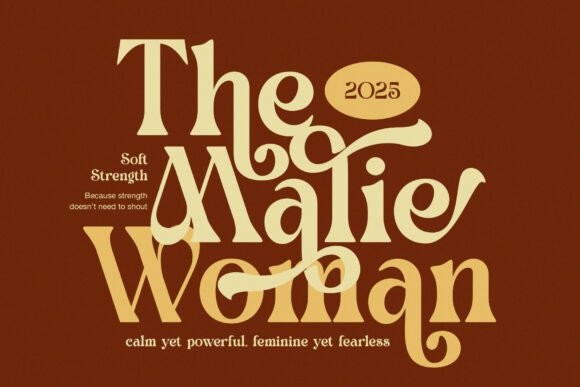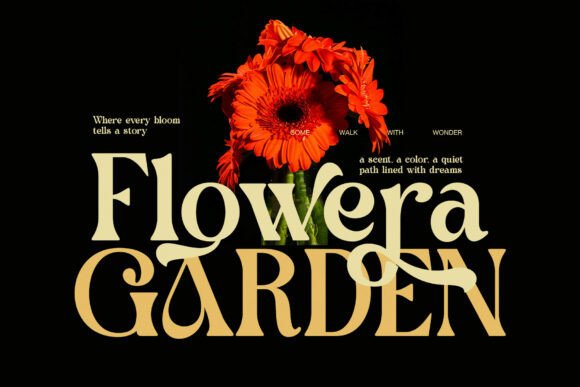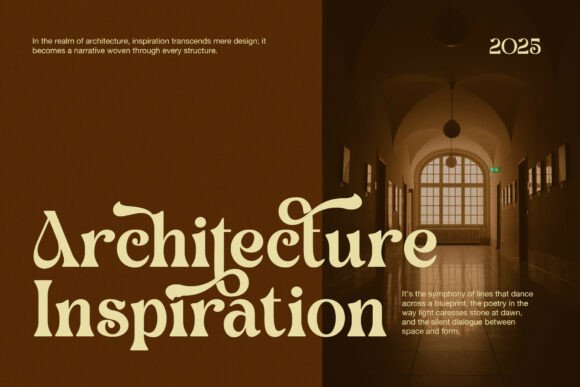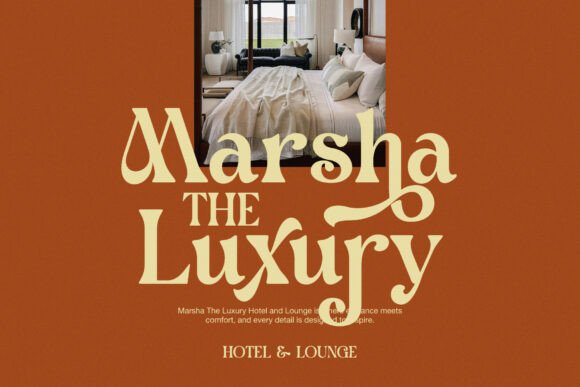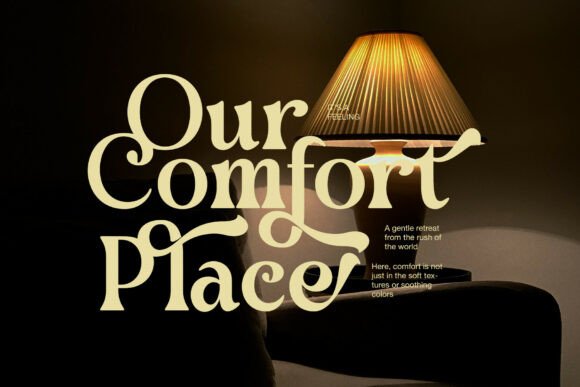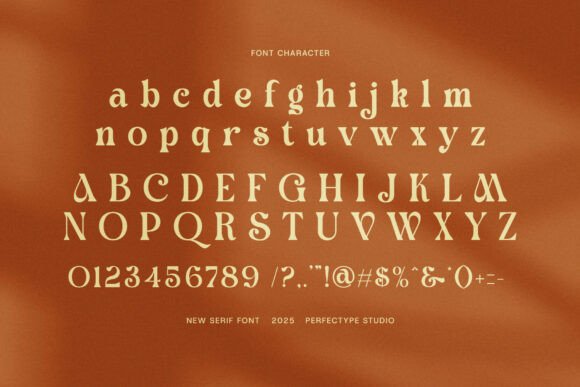
Introduction to Siska Font
Siska is a refined and elegant serif font designed to bring a smooth, natural flow to your creative projects.
Ideal for invitations, branding, logos, and social media graphics, Siska adds a stylish, feminine touch that elevates any design With its graceful curves and clean, balanced strokes, it offers a warm yet professional presence while maintaining excellent readability.